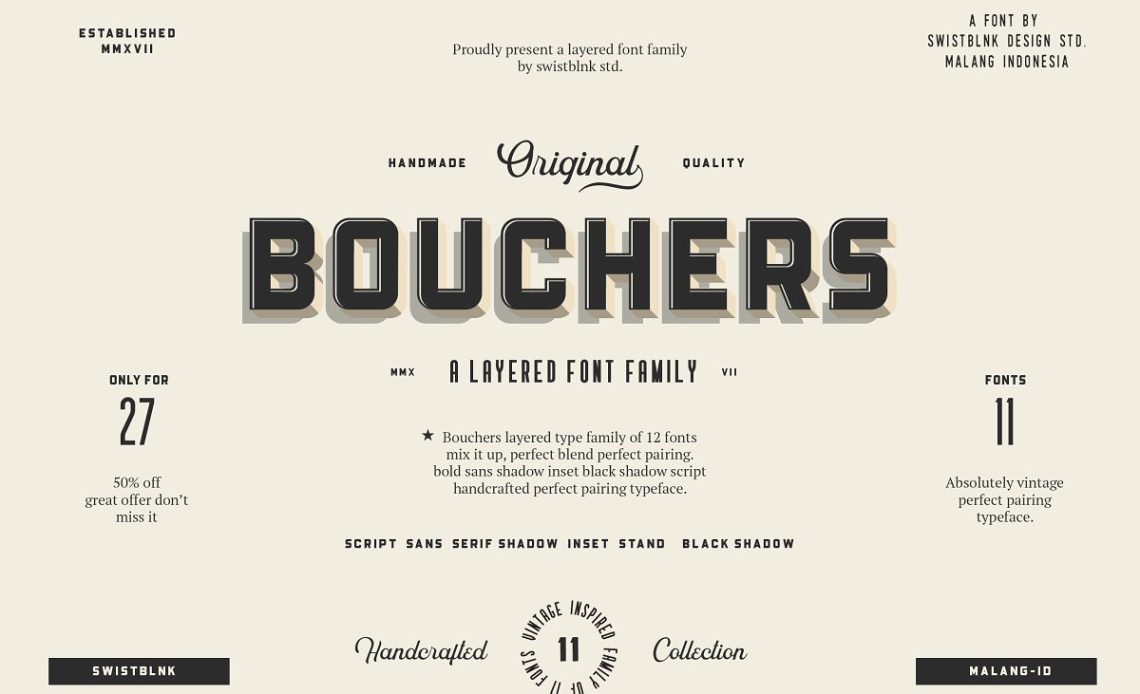
Introducing the Bouchers Layered | Font Bundle, the perfect sans serif font family for those looking to elevate their vintage book designs. Created by the talented Angga Suwista, this font bundle is a steal at 95% off - that's 107 fonts for just $29!
The Bouchers Family is a layered type system that offers endless possibilities for an authentic modern vintage look. It includes 11 unique fonts, each with their own style, such as Stand, Outline, Inset, Shadow, Black Shadow, Serif, Script 2.0, Sans 2.0, Sans Inset, Sans Shadow, and Sans Black Shadow.
Not only do these fonts look amazing together, but they also offer a range of features such as uppercase and lowercase letters, numerals and punctuations, accents (multilingual characters in some fonts), and PUA encoding. With so many options, you can use Bouchers Font Family for headlines, logotypes, signs, posters, letterheads, t-shirts, and much more!